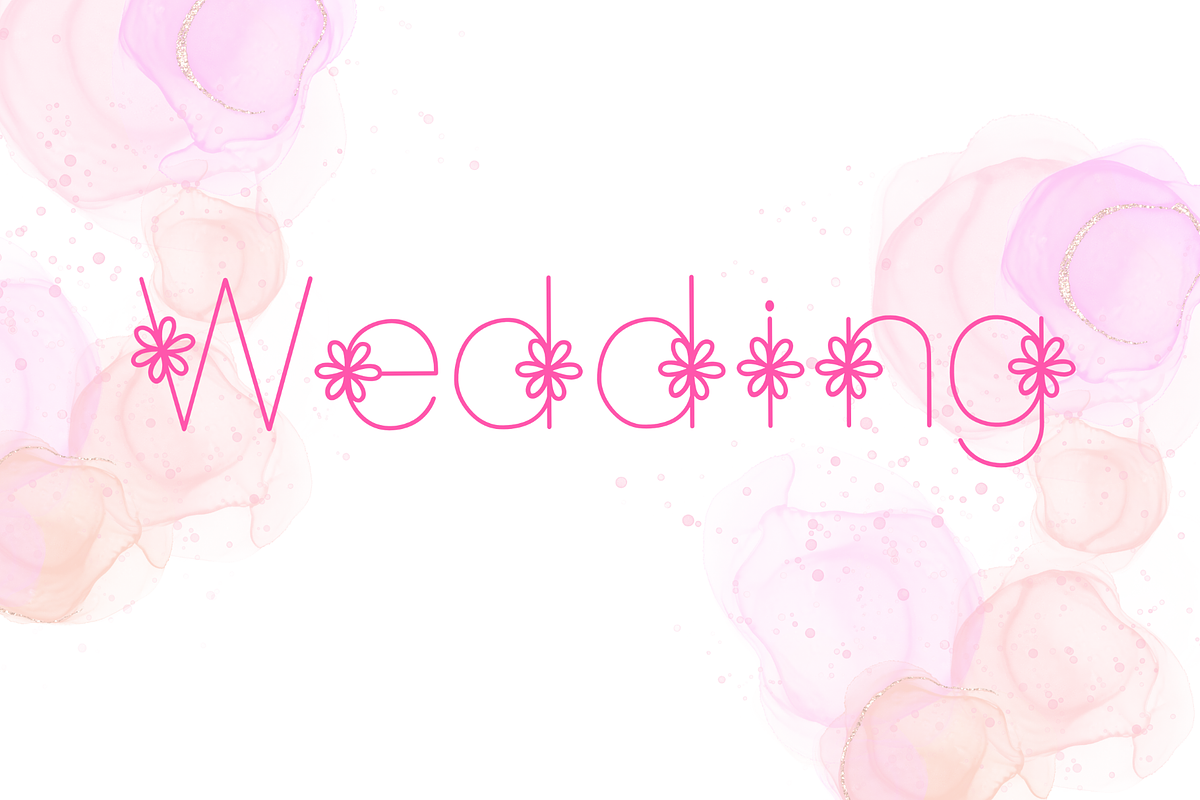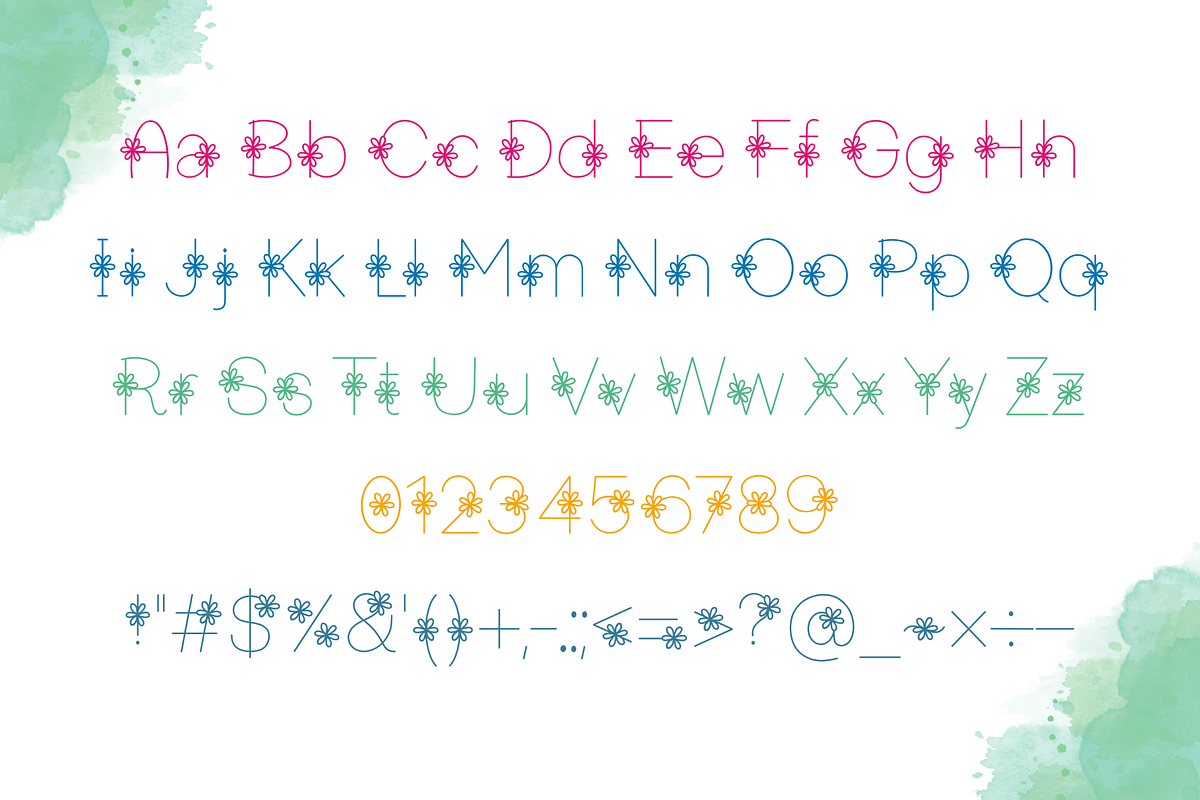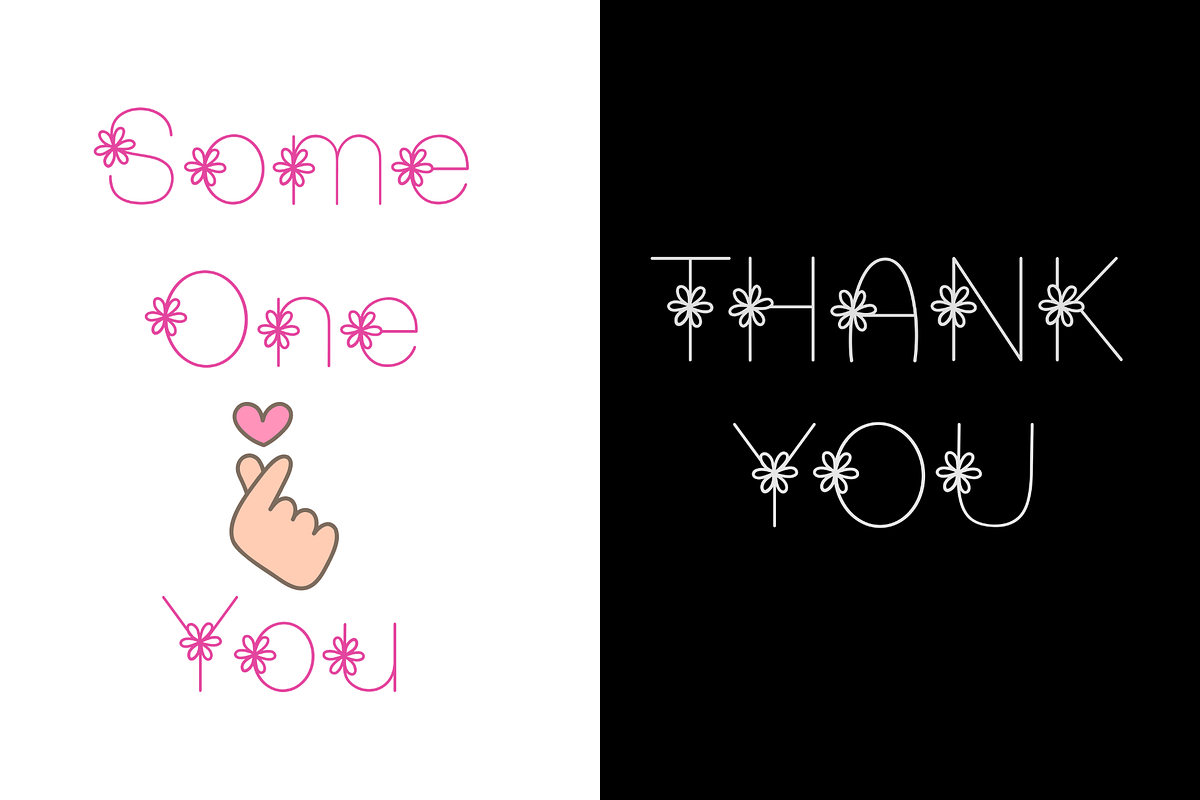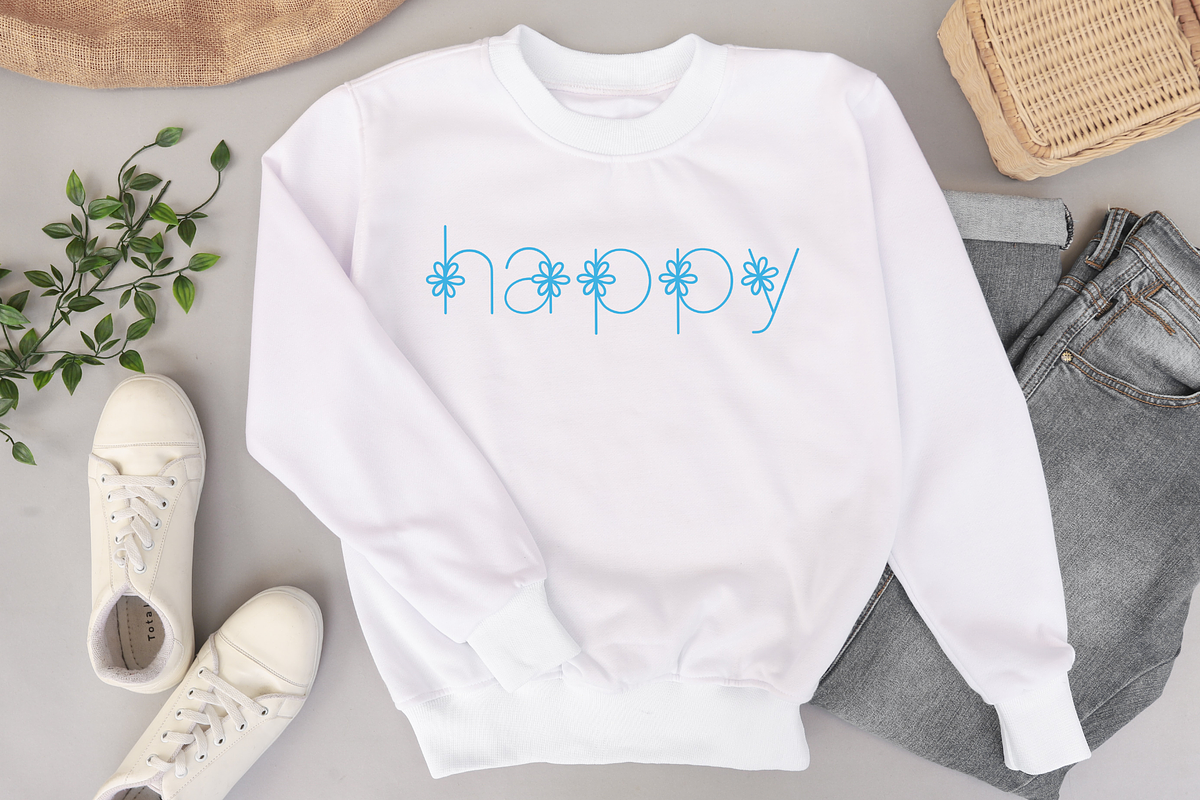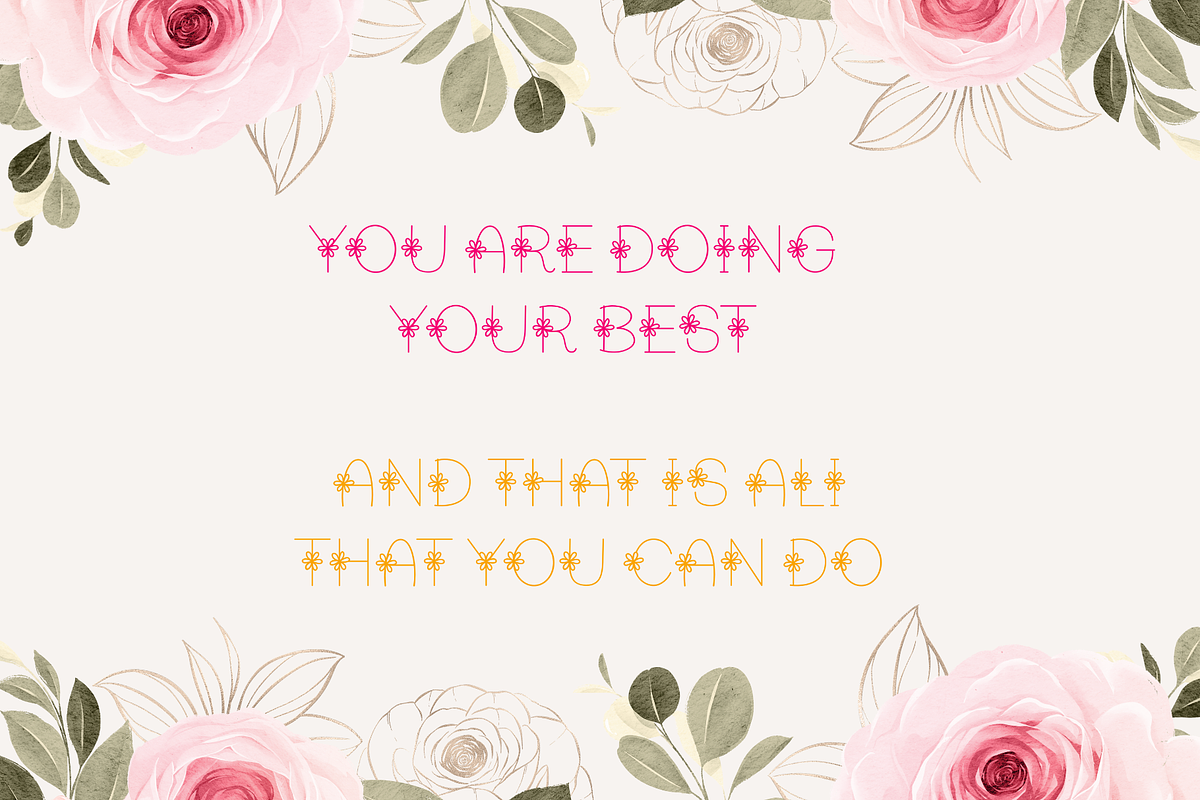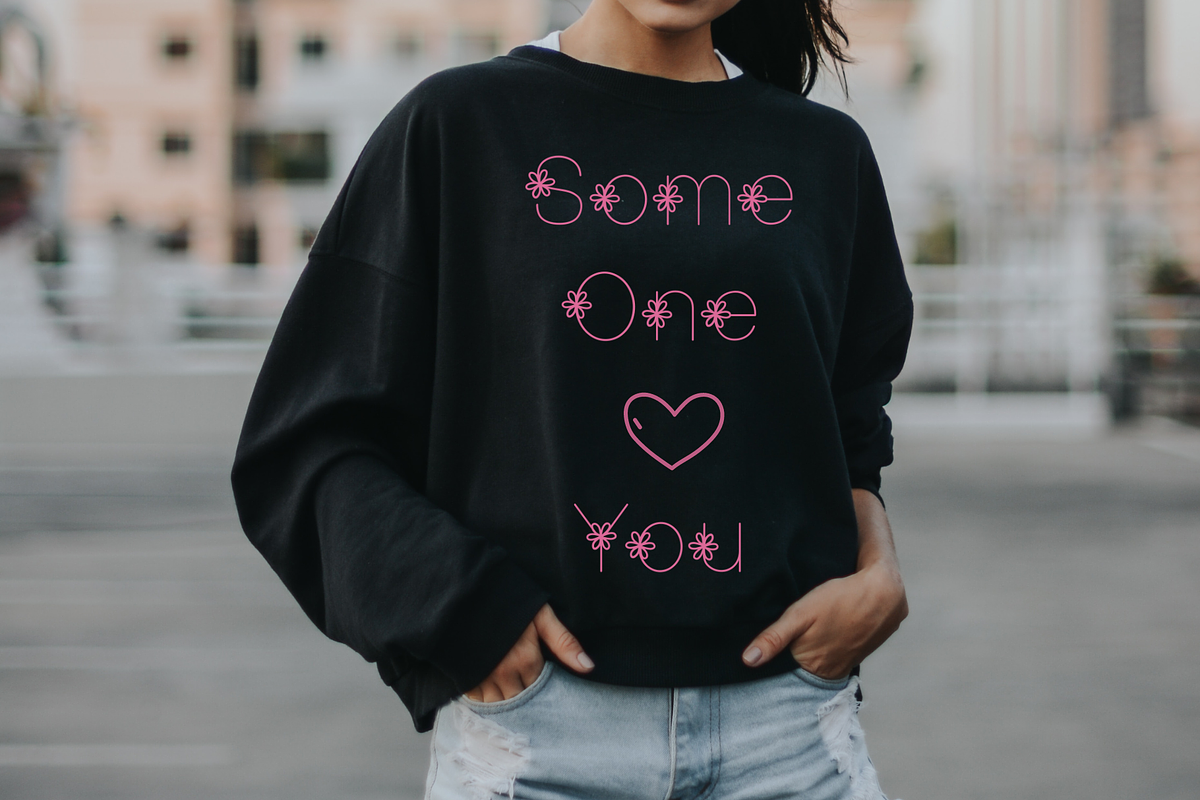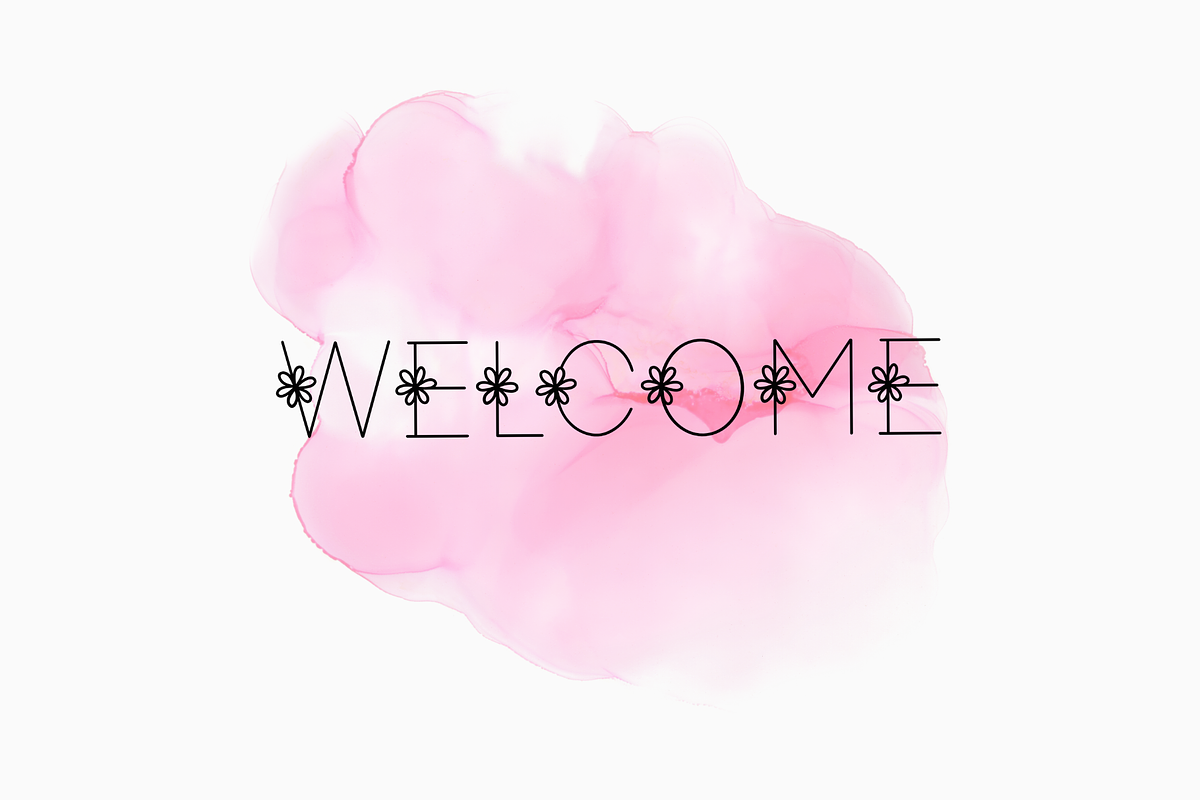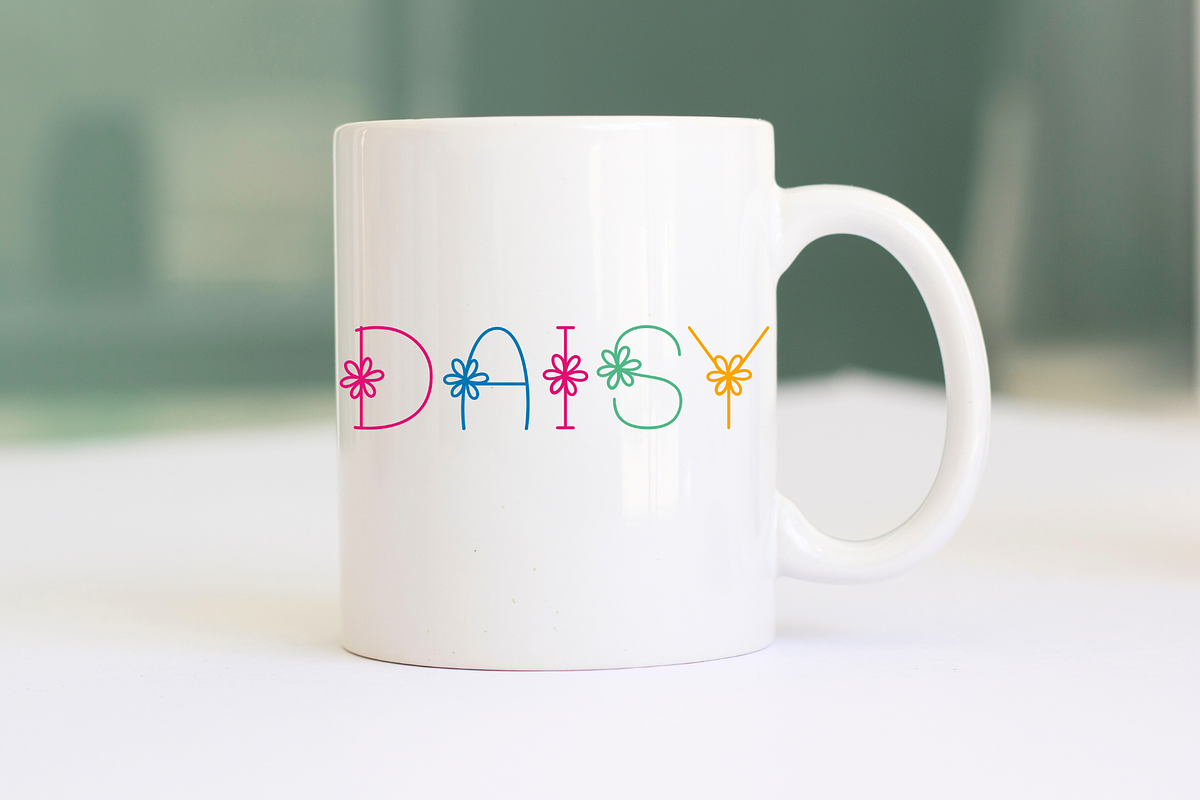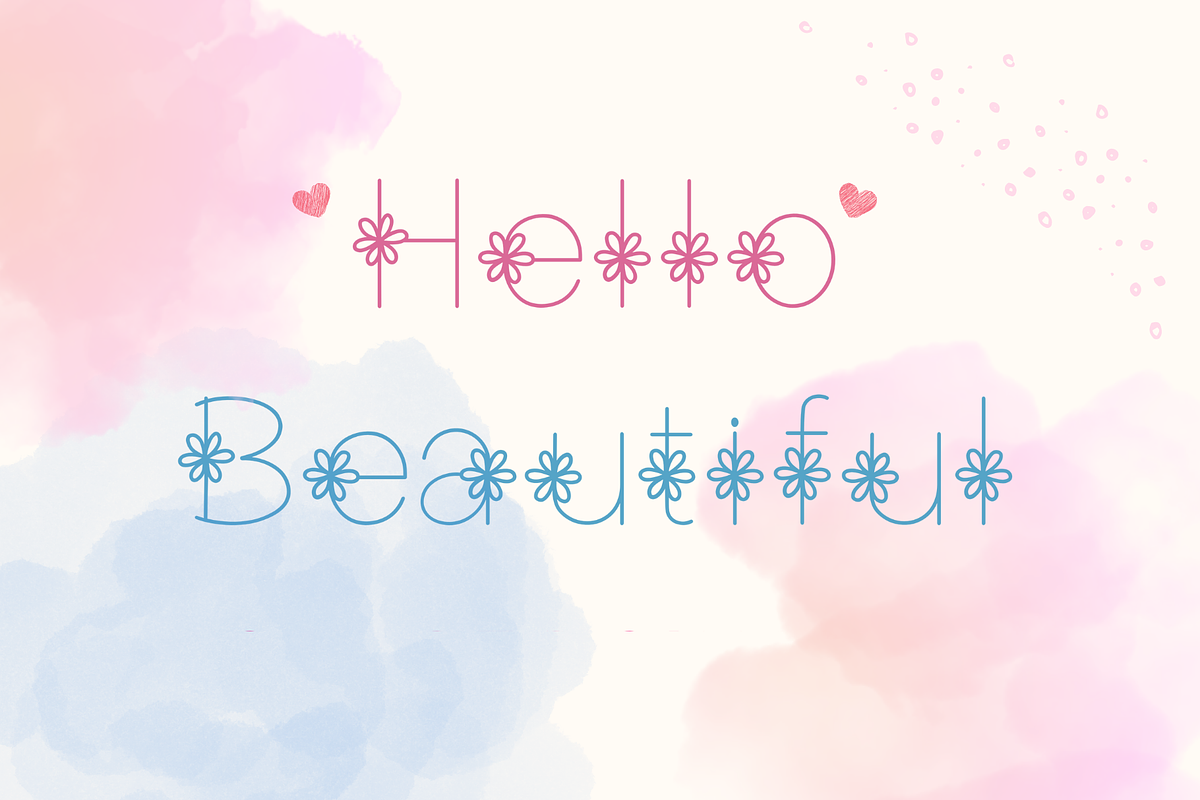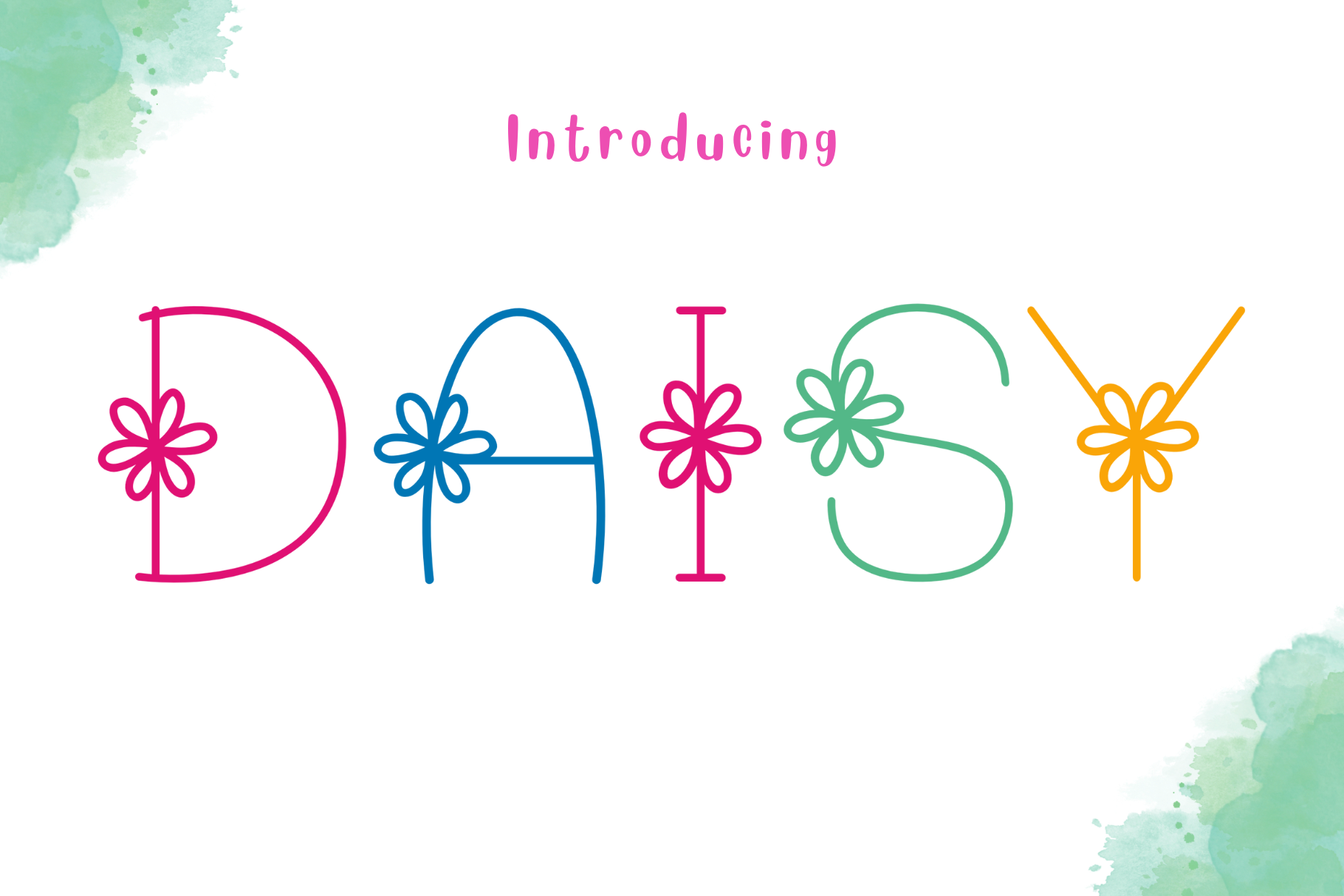
Daisy Font
Daisy is an adorable, beautiful decorative font. Whether you use it for cartoon-related designs, spring crafts, children's games, or just any creation that requires a lovely touch, this font will be an amazing choice.